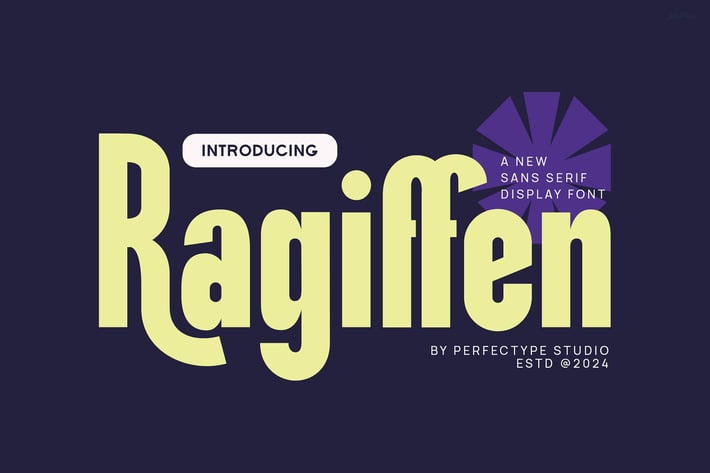
Ragiffen Modern Futuristic Sans Serif Font
Ragiffen is a modern, futuristic sans serif font designed to bring boldness and clarity to your creative projects. Because of its sharp angles combined with smooth curves, it offers a unique balance that fits perfectly in technology, digital media, branding, and design work. Moreover, its geometric shapes and minimal style make it ideal for headlines, logos, posters, and websites.
First, Ragiffen provides excellent readability and a clean, contemporary look that suits many brands. Whether you work on tech startups or game titles, this typeface will add a strong visual impact to your designs. It includes a full set of uppercase letters, numbers, and punctuation, which means you can use it easily in many different contexts.
Furthermore, Ragiffen is not only stylish but also versatile. For example, it performs well in both print and digital formats. It adapts seamlessly to different sizes, keeping clarity whether the font is small or large. Also, this font supports multiple languages, adding to its flexibility.
Here are some key benefits of Ragiffen:
- Clean, modern, and futuristic design for eye-catching visuals
- Great for branding and marketing across various platforms
- Perfect for digital projects, headlines, and posters
- High readability thanks to sharp geometric shapes
- Versatile for different creative styles and uses
- Supports multiple languages for global reach
- Includes full numbers and punctuation for complete design freedom
In addition, Ragiffen pairs well with other fonts, making it easy to combine in more complex layouts. As a result, it helps designers maintain a consistent and professional look throughout their projects. If you want a font that is both stylish and simple, Ragiffen is an excellent choice.
Finally, whether you create digital campaigns, product packaging, or innovative branding, Ragiffen delivers a sleek, modern appearance. Add this sans serif font to your collection today and see how it elevates your work.
First, Ragiffen provides excellent readability and a clean, contemporary look that suits many brands. Whether you work on tech startups or game titles, this typeface will add a strong visual impact to your designs. It includes a full set of uppercase letters, numbers, and punctuation, which means you can use it easily in many different contexts.
Furthermore, Ragiffen is not only stylish but also versatile. For example, it performs well in both print and digital formats. It adapts seamlessly to different sizes, keeping clarity whether the font is small or large. Also, this font supports multiple languages, adding to its flexibility.
Here are some key benefits of Ragiffen:
- Clean, modern, and futuristic design for eye-catching visuals
- Great for branding and marketing across various platforms
- Perfect for digital projects, headlines, and posters
- High readability thanks to sharp geometric shapes
- Versatile for different creative styles and uses
- Supports multiple languages for global reach
- Includes full numbers and punctuation for complete design freedom
In addition, Ragiffen pairs well with other fonts, making it easy to combine in more complex layouts. As a result, it helps designers maintain a consistent and professional look throughout their projects. If you want a font that is both stylish and simple, Ragiffen is an excellent choice.
Finally, whether you create digital campaigns, product packaging, or innovative branding, Ragiffen delivers a sleek, modern appearance. Add this sans serif font to your collection today and see how it elevates your work.